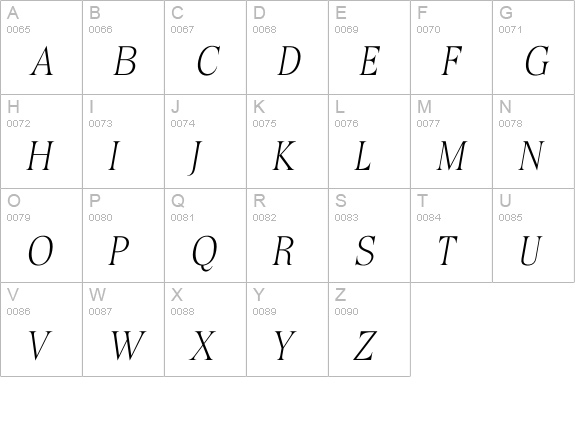
Introducing the mesmerizing Itoledo Xlight font, a true masterpiece in the world of typography. With its delicate and sleek design, this font effortlessly combines elegance and modernity, making it the perfect choice for projects that require a touch of sophistication. Itoledo Xlight font's unique and refined appearance will captivate and engage any reader, leaving a lasting impression. Its thin strokes and graceful curves create a sense of lightness, giving your text a sense of airiness and grace. Whether used for logos, branding, invitations, or any other creative endeavor, this font will elevate your design to new heights. What makes Itoledo Xlight font even more remarkable is that it is available for free! Yes, you heard it right – this beautiful font can be freely downloaded at FontsMarket.com. Now, you can effortlessly bring a touch of elegance to your projects without breaking the bank. With its extensive character set, including uppercase and lowercase letters, numerals, punctuation marks, and special characters, Itoledo Xlight font offers endless possibilities for your creative ventures. Whether you're designing for print or digital media, this font will seamlessly enhance your compositions and convey your message with style. Don't miss the opportunity to add Itoledo Xlight font to your font library. Download it for free at FontsMarket.com and let your creativity soar. Elevate your designs with this exquisite font, and leave a lasting impression on your audience.